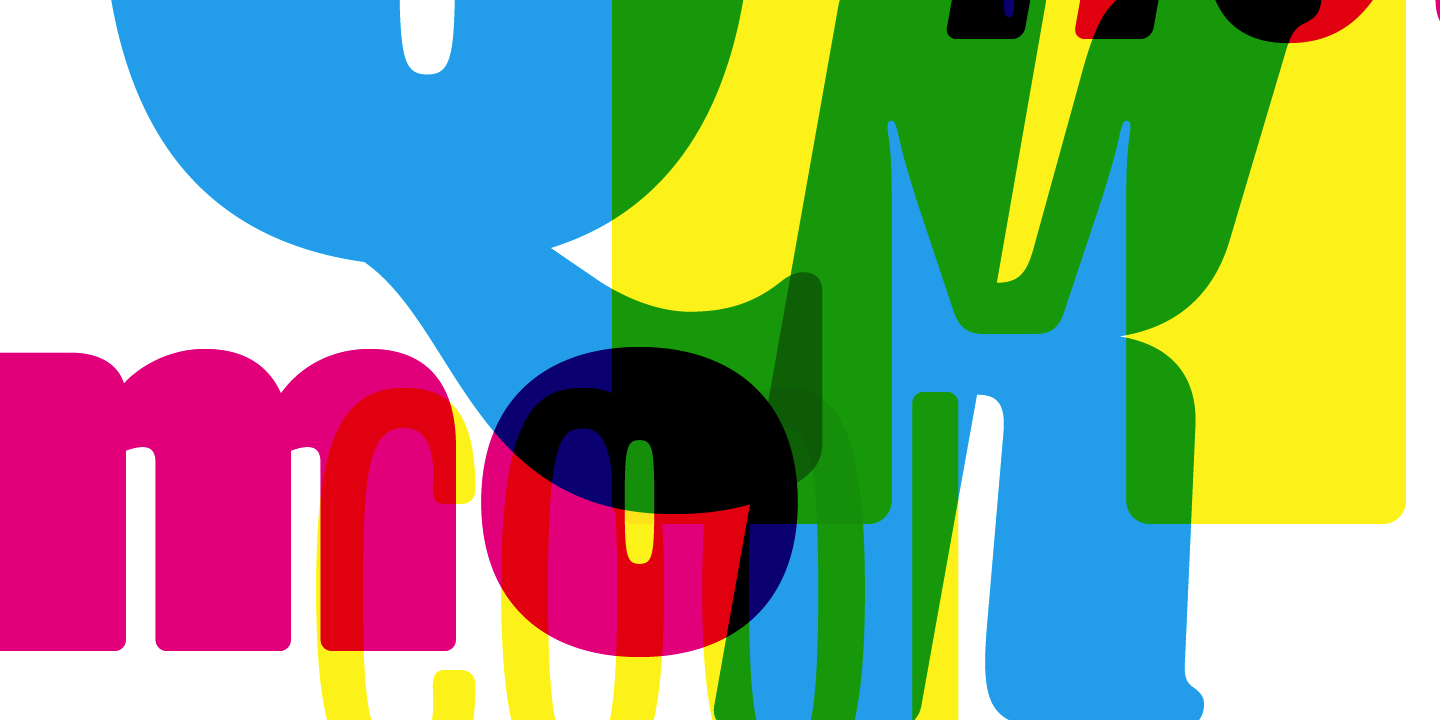
Program Font is a strikingly modern and highly precise typeface, perfect for designs that aim to convey innovation, digital clarity, and a sleek, functional aesthetic. Its often geometric or modular forms, clean lines, and clear legibility make it an excellent choice for software interfaces, coding environments, data visualization, and tech company branding. Imagine it gracing the display of a developer's IDE, providing a sophisticated and efficient feel to scientific presentations, or adding a crisp, intelligent look to digital dashboards. This font is also superb for technical documentation, web development projects, and any application where precision, modularity, and a forward-thinking visual identity are key. It doesn't just display text; it executes with an undeniable sense of high-tech order and logical design.
What makes Program Font so exciting is its remarkable ability to blend functional clarity with a distinctive, contemporary style, often echoing the aesthetics of computing and modern engineering. It possesses a precise and disciplined character, making it incredibly effective for conveying complex information with elegant simplicity. This unique combination allows designers to create visually compelling content that is both highly readable and effortlessly modern. It’s a font that speaks with a clean, confident voice, making it ideal for brands and content creators who want to convey reliability, technological prowess, and a sophisticated, no-fuss aesthetic. Its strong, often monospaced or structured, appeal can make any design feel more cohesive and effortlessly cutting-edge, drawing the eye with its refined form.
The Program Font family typically offers a comprehensive range of weights and styles to provide extensive design flexibility and allow for nuanced typographic expressions. While the exact variations can differ based on the specific design, you can generally expect to find key members that support diverse layout needs, such as:
• Program Thin
• Program Light
• Program Regular
• Program Medium
• Program SemiBold
• Program Bold
• Program Black
• Program Italic (for most, if not all, weights)
• Program Mono (a monospaced version for code)
• Program Condensed (if available, for space-saving applications)
These various weights and styles empower designers to create effective visual hierarchies, emphasize important information, and maintain a consistent, polished, and contemporary look throughout all digital and print assets. The opportunity to utilize Program Font Free Download is an excellent way to experience its versatile elegance and modern appeal for your personal projects.